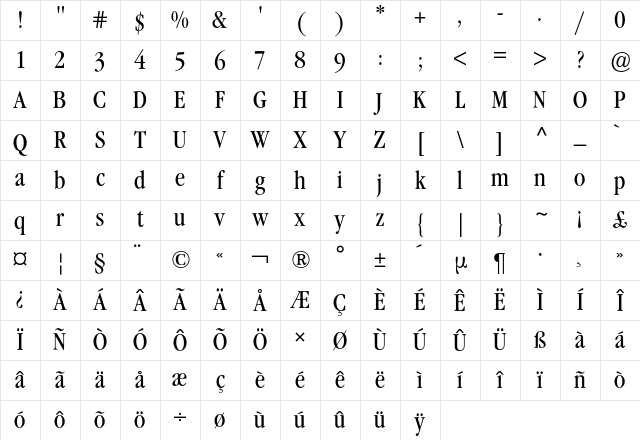
Garamond ITC Condensed BQ Regular
Garamond ITC Condensed BQ Regular Family
Garamond ITC Condensed BQ Regular
Garamond ITC Condensed BQ Regular Font Preview
Garamond ITC Condensed BQ Regular Uppercase Preview
Garamond ITC Condensed BQ Regular Lowercase Preview
Garamond ITC Condensed BQ Regular Numeric Preview
Garamond ITC Condensed BQ Regular Character Map
Complete Garamond ITC Condensed BQ Regular glyph index. Displaying only characters natively supported by Garamond ITC Condensed BQ Regular font.
Design Context for Garamond ITC Condensed BQ
Garamond ITC Condensed BQ is a composed and adaptable typeface that performs quietly and consistently across a wide range of design contexts. Its narrow stance lets it pack a punch even in space-constrained designs.
Pro Tip: Use Garamond ITC Condensed BQ in both headline and body roles to test its range before committing to a single application.